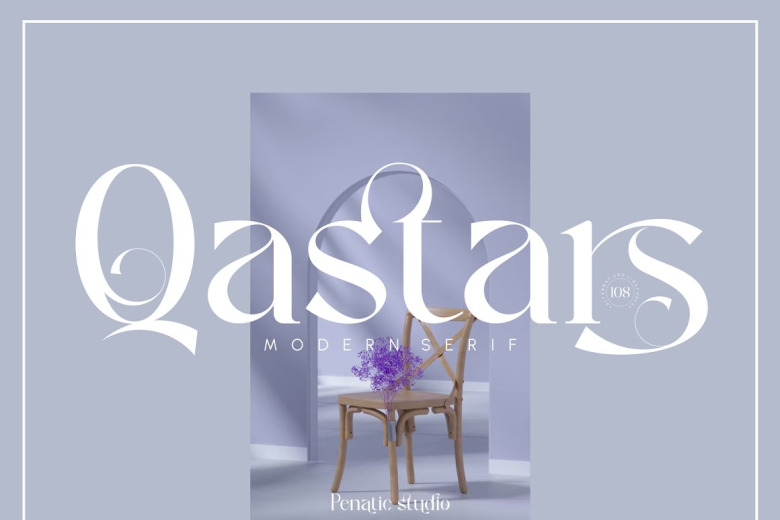
Qastars Font
Qastars is a very elegant modern serif font that is designed in smooth flow for each letters and consists of many ligatures and letter variations that allow you to experiment with using it on every letter.
This font is perfect for graphic design, magazine covers, branding names of identity, wedding cards and many more.
Qastars Serif Font